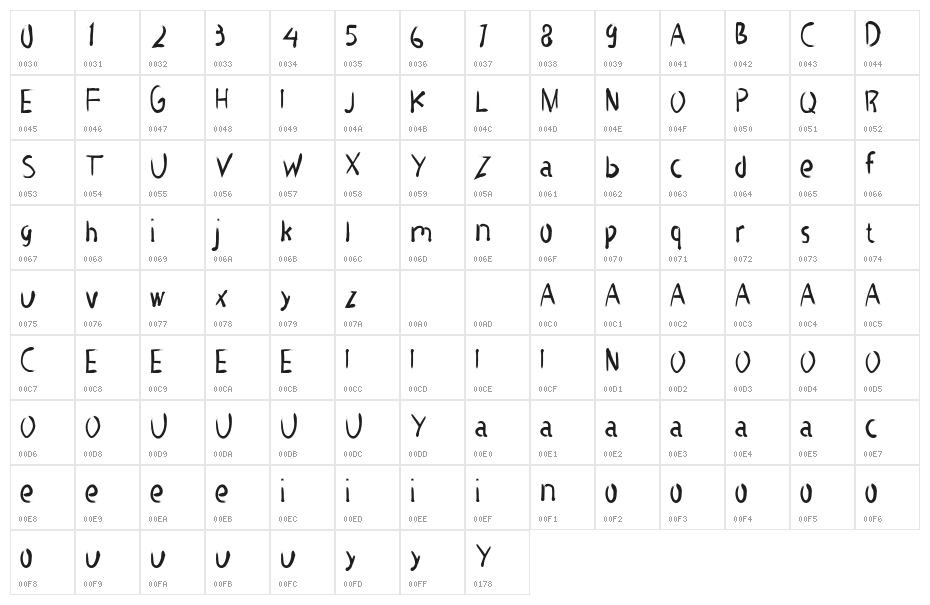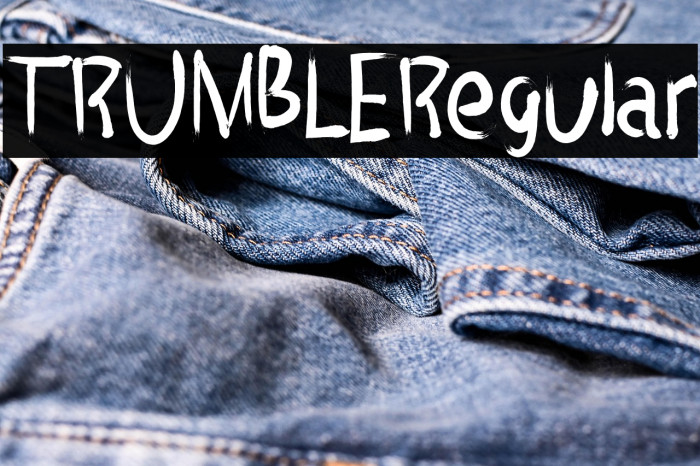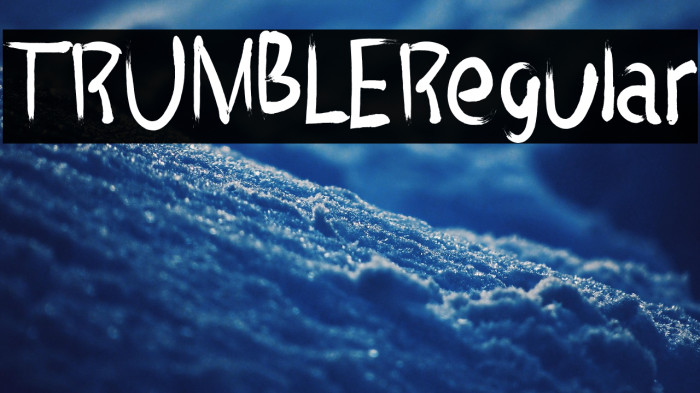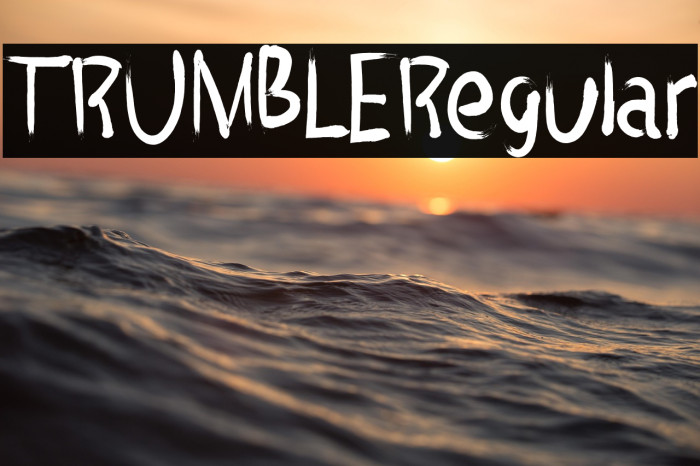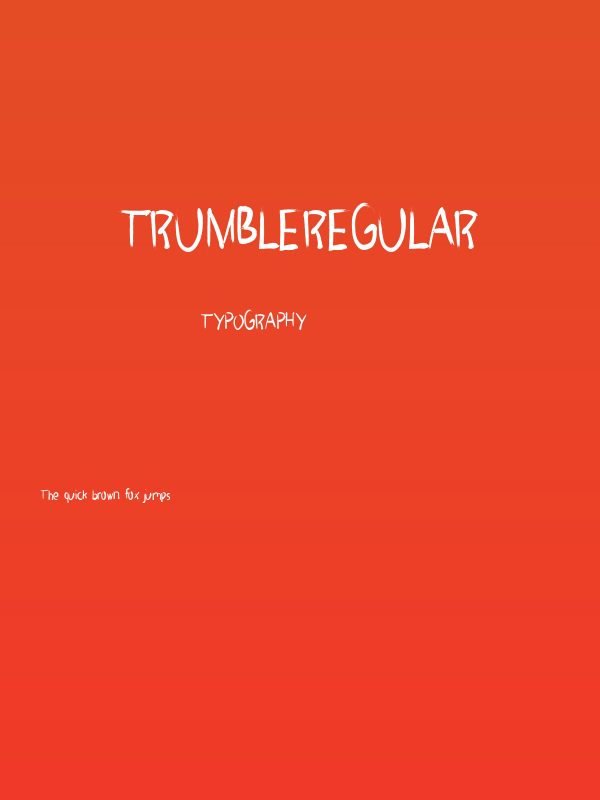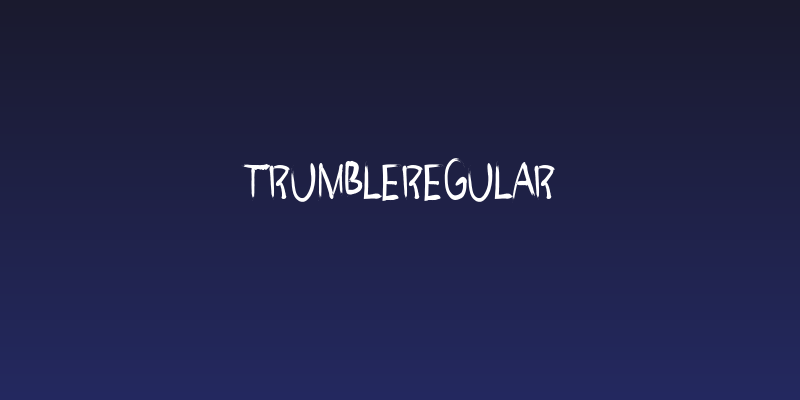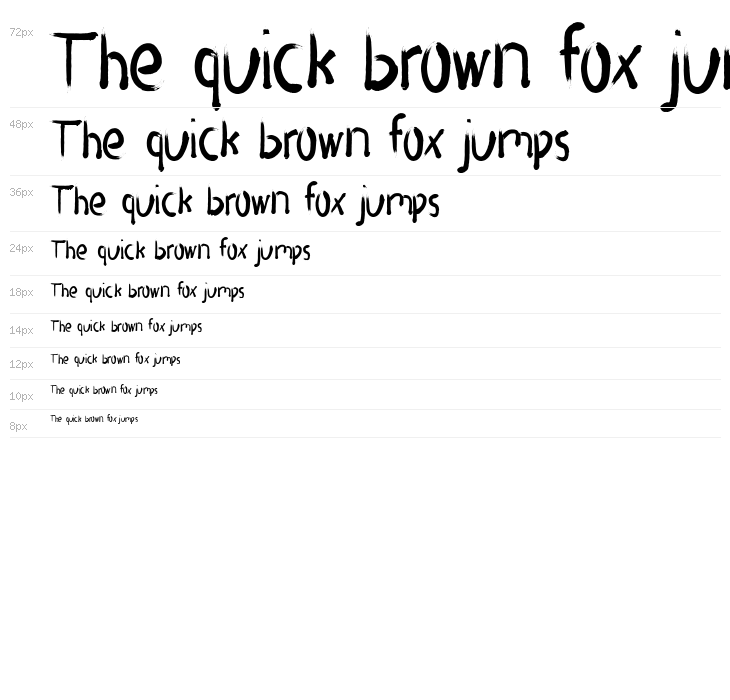
TRUMBLERegular Font
TRUMBLERegular Description
This font exhibits a bold, brush-stroke style that gives it a dynamic and energetic appearance. The characters are crafted with uneven strokes, creating a sense of movement and spontaneity. The uppercase and lowercase letters maintain a consistent style, with slightly exaggerated curves and angles that add to the font's expressive nature. The numbers follow the same aesthetic, ensuring uniformity across all characters. This font lacks traditional serifs, emphasizing its modern and artistic flair. The overall impression is one of creativity and boldness, making it suitable for projects that require a strong visual impact.